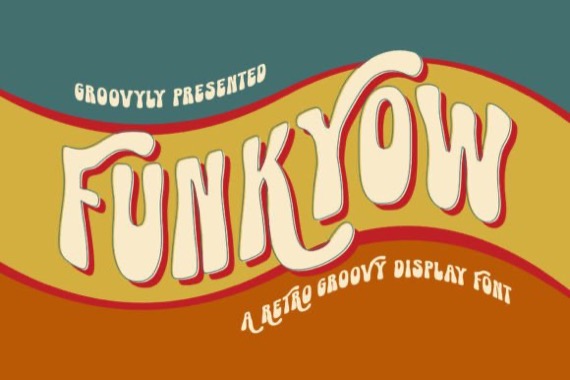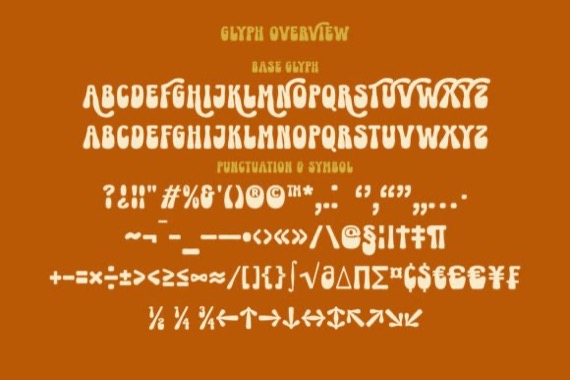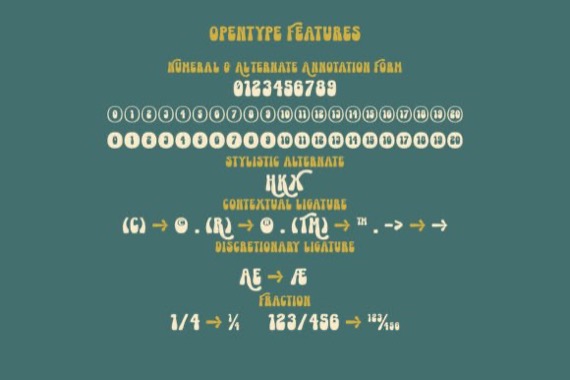
Introducing a fun and cheerful groovy display font from Brothers Graphic, Funkyow is a versatile, stylish, and playful retro display font perfect for a wide spectrum of applications such as greeting cards, headlines, and many more! Add it to any of your creative projects, and it will give them a romantic and exquisite feel.
Funkyow Groovy Display Font